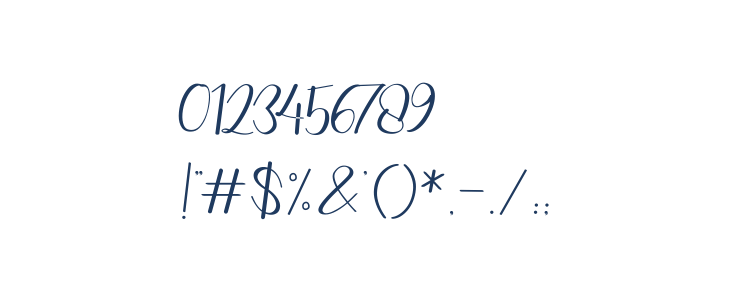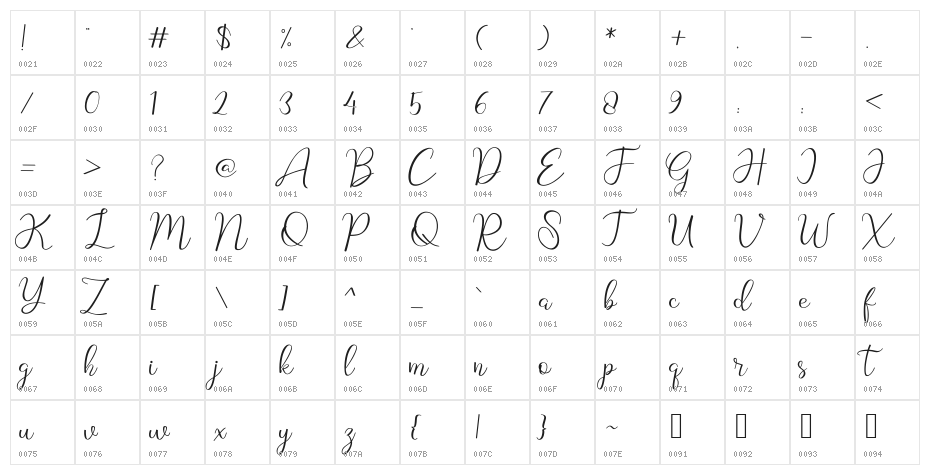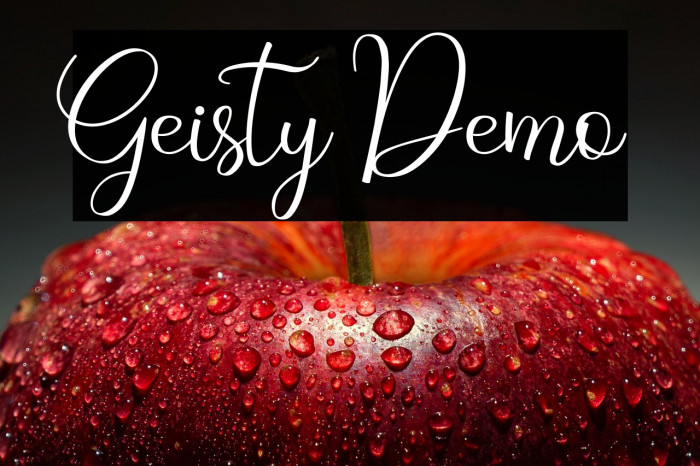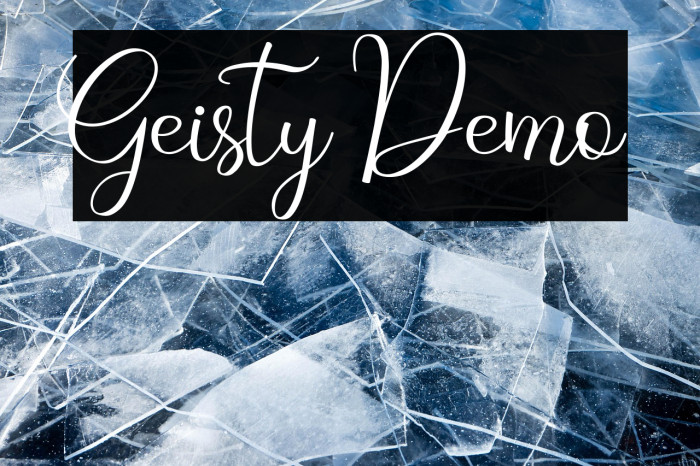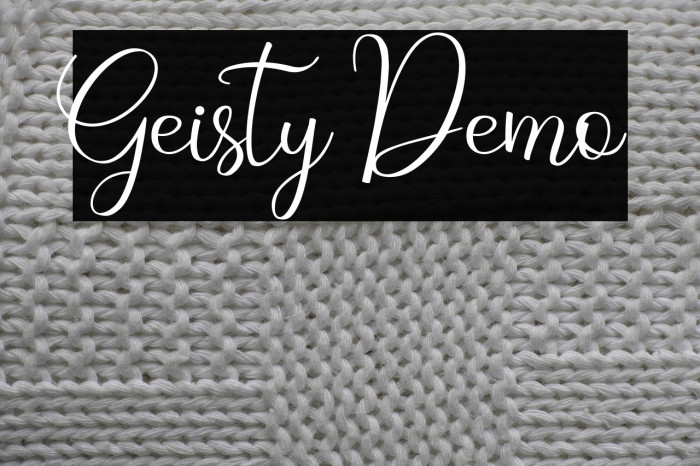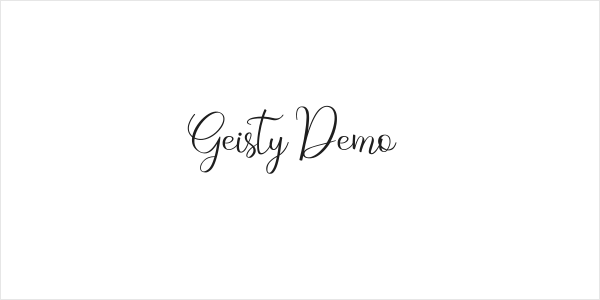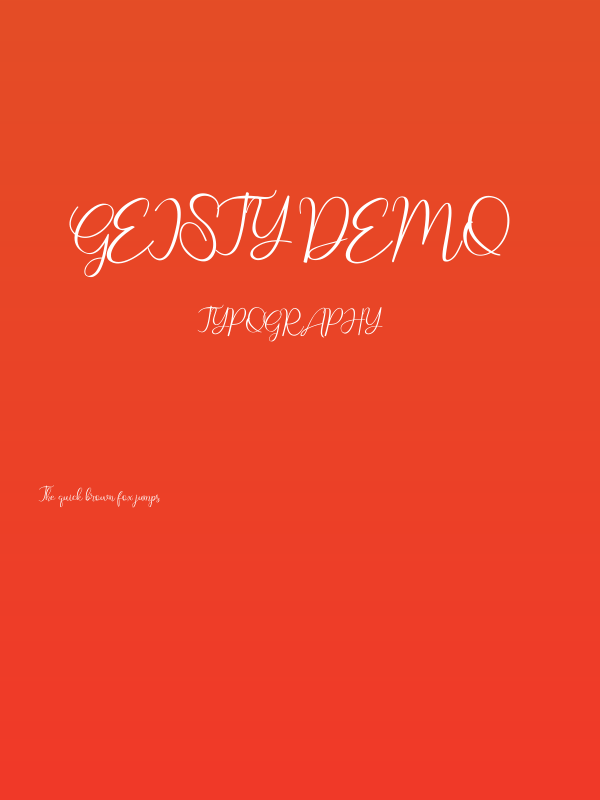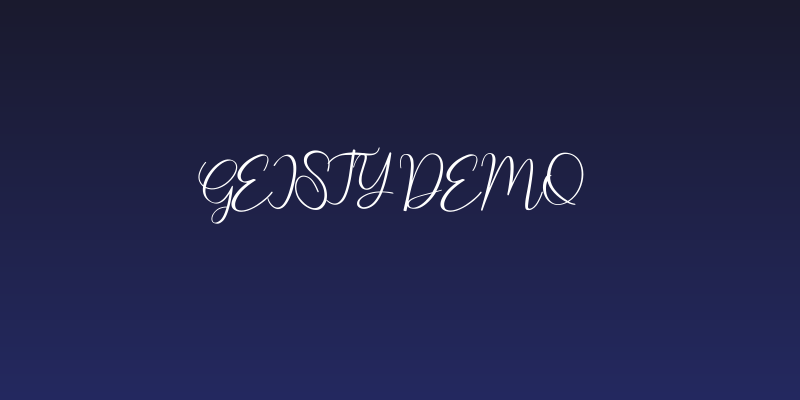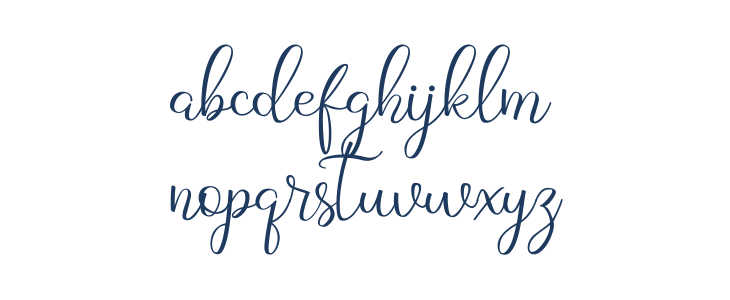
Geisty Demo Font
Geisty Demo Description
This elegant script font features a fluid and cursive style, characterized by its smooth, flowing lines and graceful curves. Each letter connects seamlessly, creating a harmonious and continuous look. The uppercase letters are particularly ornate, with intricate loops and swirls that add a touch of sophistication. The lowercase letters maintain a consistent style, complementing the uppercase with their own subtle flourishes. Numbers and special characters are designed with the same attention to detail, ensuring a cohesive appearance across all elements. This font exudes a sense of elegance and refinement, making it ideal for projects that require a touch of class and sophistication.